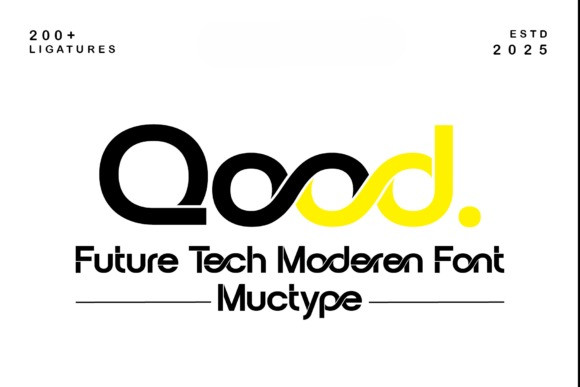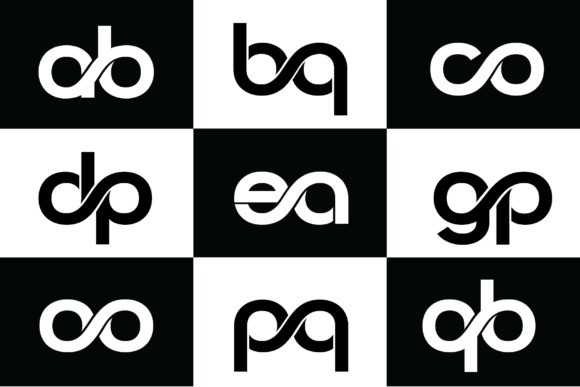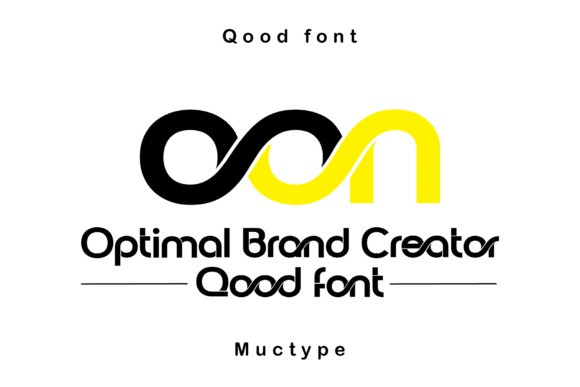
Qood Font
Qood Font is a futuristic sport display font designed for bold, dynamic, and modern projects. Its sharp lines and precise angles give it a strong, energetic look perfect for sports branding, eSports, posters, jerseys, and team logos.
With 200+ unique ligatures and a complete glyph set including uppercase, lowercase, numbers, punctuation, symbols, and multilingual support, Qoob offers endless creative possibilities. This font is built to make your designs stand out with a sleek, professional edge.